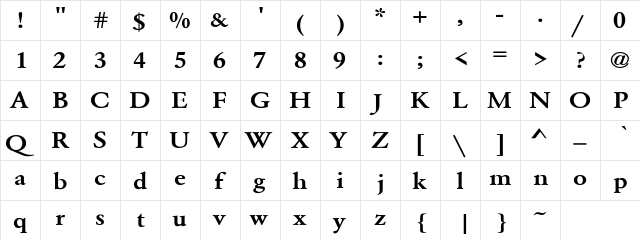
Grendel Medium Expanded Regular
Design Context for Grendel Medium Expanded Typeface
Grendel Medium Expanded offers clean, dependable letterforms without strong stylistic allegiance, making it a practical choice for designers who need flexibility.